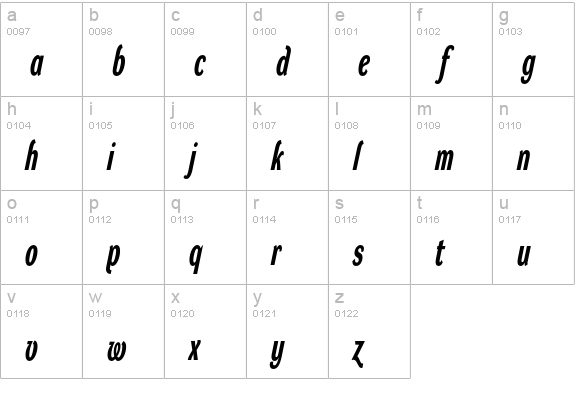
Dynamo Italic H X C Font Details
Dynamo Italic H X C is a distinctive, italic variant in the Dynamo typeface family \xE2\x80\x94 well suited to design and typography projects.
Dynamo Italic H X C font is a modern and sleek typeface that exudes elegance and sophistication. Its unique design features a perfect balance of sharp angles and smooth curves, creating a dynamic and eye-catching look. This font is perfect for adding a touch of style to any project, whether it's for branding, advertising, or design. What sets Dynamo Italic H X C font apart is its versatility - it can be used for both headings and body text, making it a versatile choice for a wide range of design applications. The italic style adds a touch of flair and personality to your text, making it stand out from the crowd. Best of all, Dynamo Italic H X C font is completely free to download at FontsMarket.com. So why wait? Add this stunning font to your collection today and take your designs to the next level!